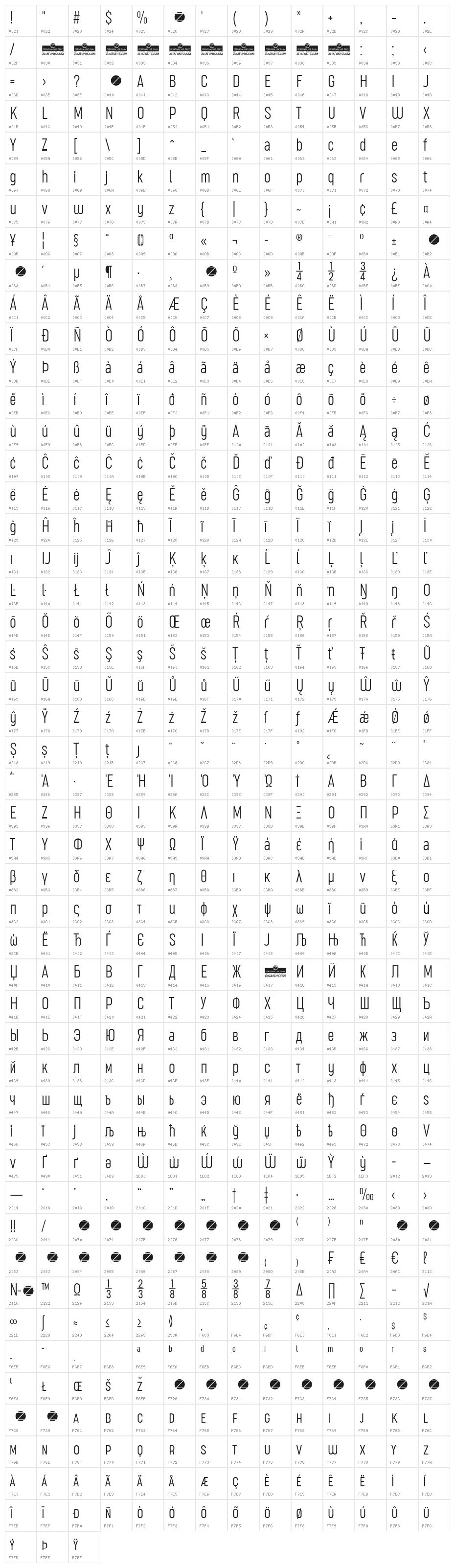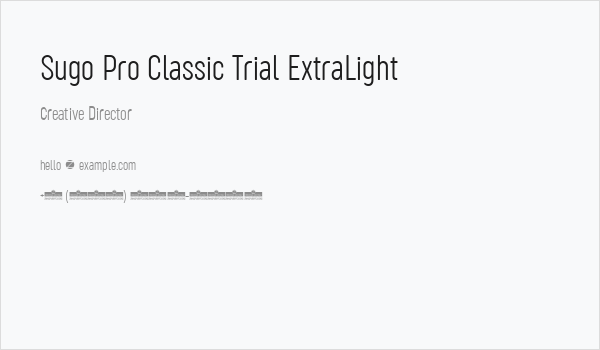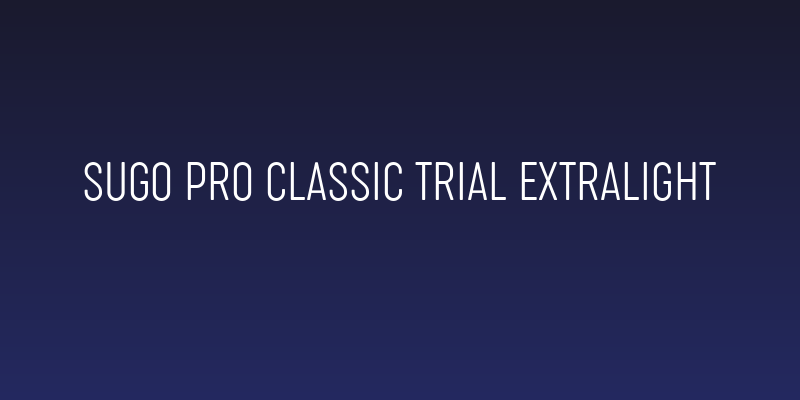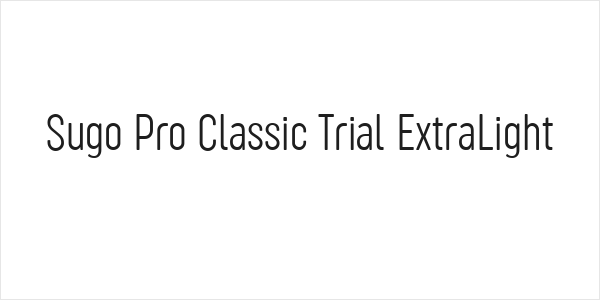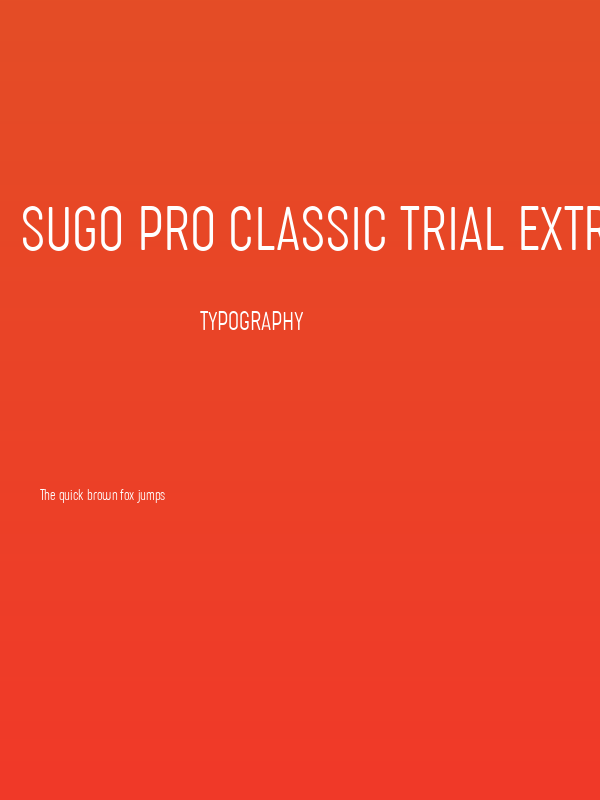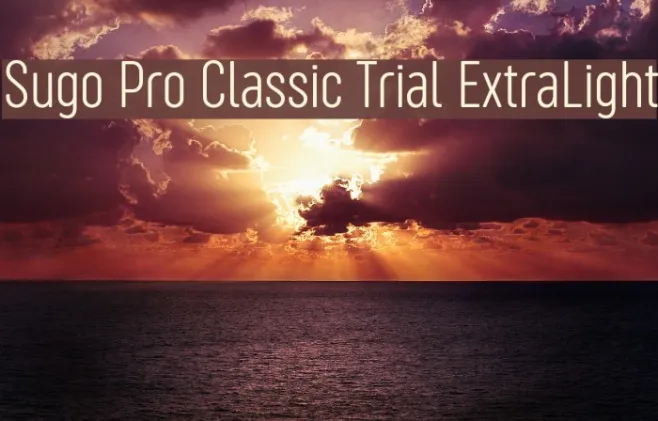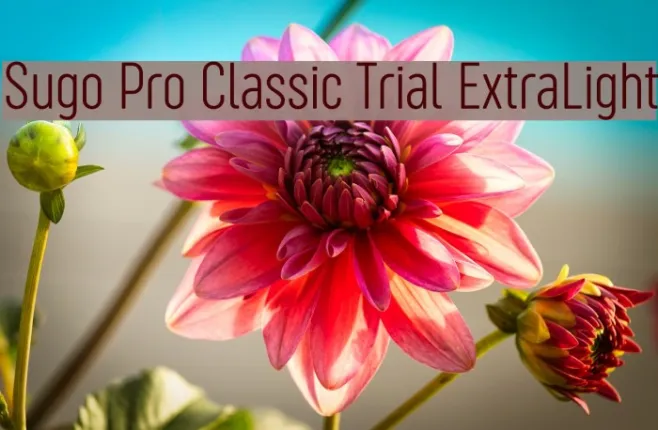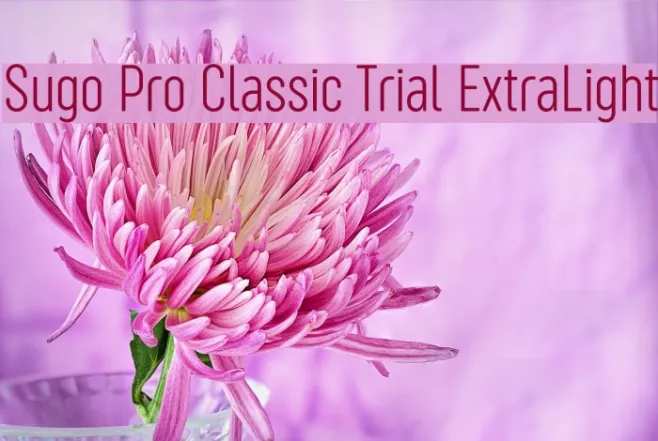
Sugo Pro Classic Trial ExtraLight Font
Sugo Pro Classic Trial ExtraLight Description
This font features a sleek and modern design with clean lines and a minimalist aesthetic. The characters are tall and narrow, giving it an elegant and sophisticated appearance. The uppercase letters are uniform in height, while the lowercase letters maintain a consistent baseline, enhancing readability. The font's thin strokes and uniform weight contribute to its airy and light feel, making it suitable for contemporary designs. The special characters are well-integrated, maintaining the font's overall style and ensuring versatility in various applications.
| Width | Condensed |
| Use Case | Headlines, Body text, Logos |
| Proposed Projects | Ideal for branding, editorial design, and digital interfaces where a modern and clean look is desired. |